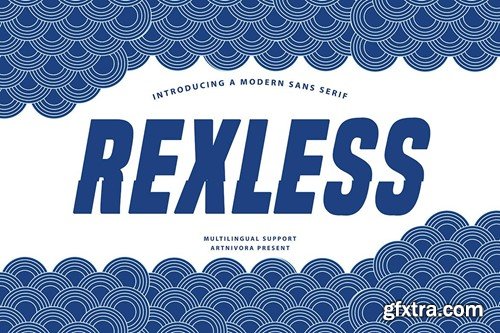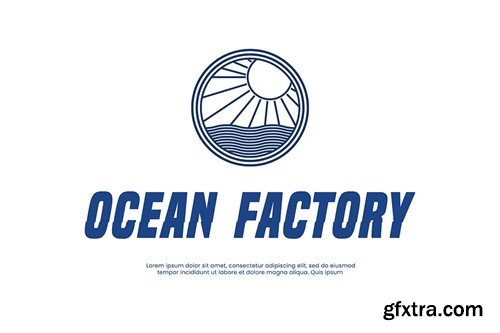
Rexless - 现代无衬线字体 2GW3NDS
Rexless - Modern Sans Serif Font
Introducing Rexless, a simple and sans serif font. So perfect for you who needs a typeface for logo designs, magazine, social media, brochure, and many more. Features Files Includes Thank you for checking and i hope you enjoy it.